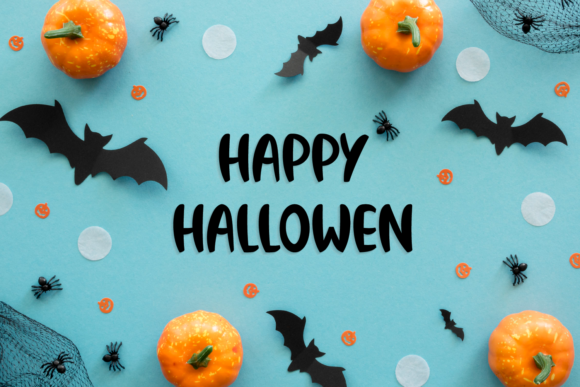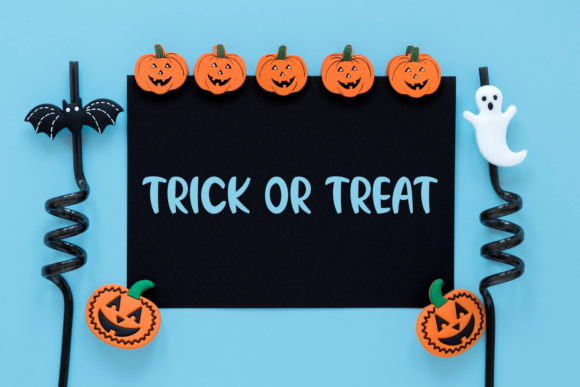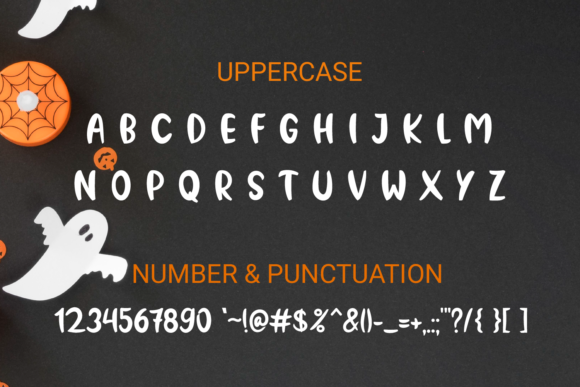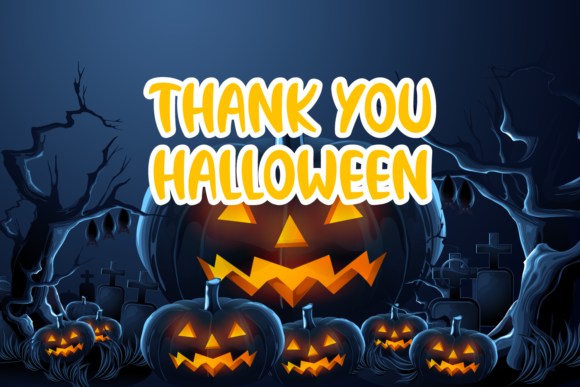
Unleash the Spookiness: Exploring the Halloween Haunted Font
As the spookiest time of the year approaches, designers and crafters are on the lookout for the perfect typography to add a touch of eeriness to their creations. Look no further than the Halloween Haunted Font, a simple yet striking lettered display font that’s sure to make your projects stand out.
What is the Halloween Haunted Font?
The Halloween Haunted Font is a carefully crafted typeface designed to evoke the spirit of Halloween. With its clean lines and neat lettering, this font is perfect for adding a touch of sophistication to your spooky designs. Whether you’re working on a haunted house invitation, a creepy craft project, or a howling good poster, this font is sure to impress.
Key Features of the Halloween Haunted Font
- Simple and Neat Lettering: The Halloween Haunted Font boasts a clean and elegant design, making it perfect for a wide range of creative projects.
- Lettered Display Font: This font is specifically designed for display purposes, making it ideal for headlines, titles, and other attention-grabbing elements.
- Easy to Read: Despite its spooky theme, the Halloween Haunted Font remains highly legible, ensuring that your message gets across clearly.
- Versatile: From invitations and posters to crafts and DIY projects, this font can be used in a multitude of creative applications.
How to Use the Halloween Haunted Font
Adding the Halloween Haunted Font to your project is a straightforward process that can elevate your design in no time. Here are a few ideas to get you started:
- Haunted House Invitations: Create spooky invitations for Halloween parties or haunted house events using this font.
- Craft Projects: Add a touch of Halloween spirit to your craft projects, such as pumpkin decorations, spooky jewelry, or eerie home decor.
- Posters and Flyers: Design eye-catching posters and flyers for Halloween events, using the Halloween Haunted Font to grab attention.
- Digital Designs: Incorporate this font into your digital designs, such as social media graphics, blog posts, or email newsletters.
Tips for Pairing the Halloween Haunted Font
To make the most of the Halloween Haunted Font, consider pairing it with other fonts that complement its style. Here are a few suggestions:
- Serif Fonts: Pair the Halloween Haunted Font with serif fonts for a classic, elegant look.
- Script Fonts: Combine this font with script fonts for a more whimsical, playful feel.
- Bold Fonts: Use bold fonts to create contrast and add emphasis to your design.